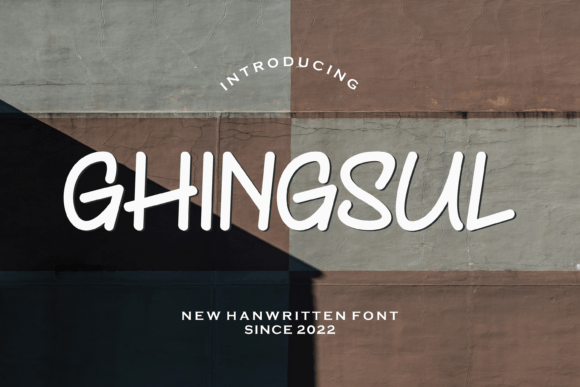
Introducing Ghingsul, the captivating script font that will add a touch of elegance and modernity to your creations! Crafted by the renowned riotj, this masterpiece is designed to elevate your designs.
Indulge in the charm of Ghingsul's graceful curves and playful strokes that evoke a sense of warmth and sophistication. Whether you're creating stunning logos, eye-catching headlines, or sophisticated invitations, Ghingsul will infuse your projects with a touch of timeless charm.
Immerse yourself in the versatility of Ghingsul, a font that effortlessly adapts to a myriad of styles. From whimsical invitations to sleek website designs, Ghingsul will elevate your creations to new heights. Unleash your imagination and let the magic of Ghingsul transform your designs.
Embrace the allure of Ghingsul, a font that will ignite your passion and inspire you to create masterpieces. Its beauty and functionality make it the perfect choice for designers seeking a touch of elegance and a dash of modernity.
Don't resist the allure of Ghingsul any longer. Embark on a design journey filled with creativity and sophistication. Let Ghingsul be your muse, guiding you to create designs that captivate and inspire.